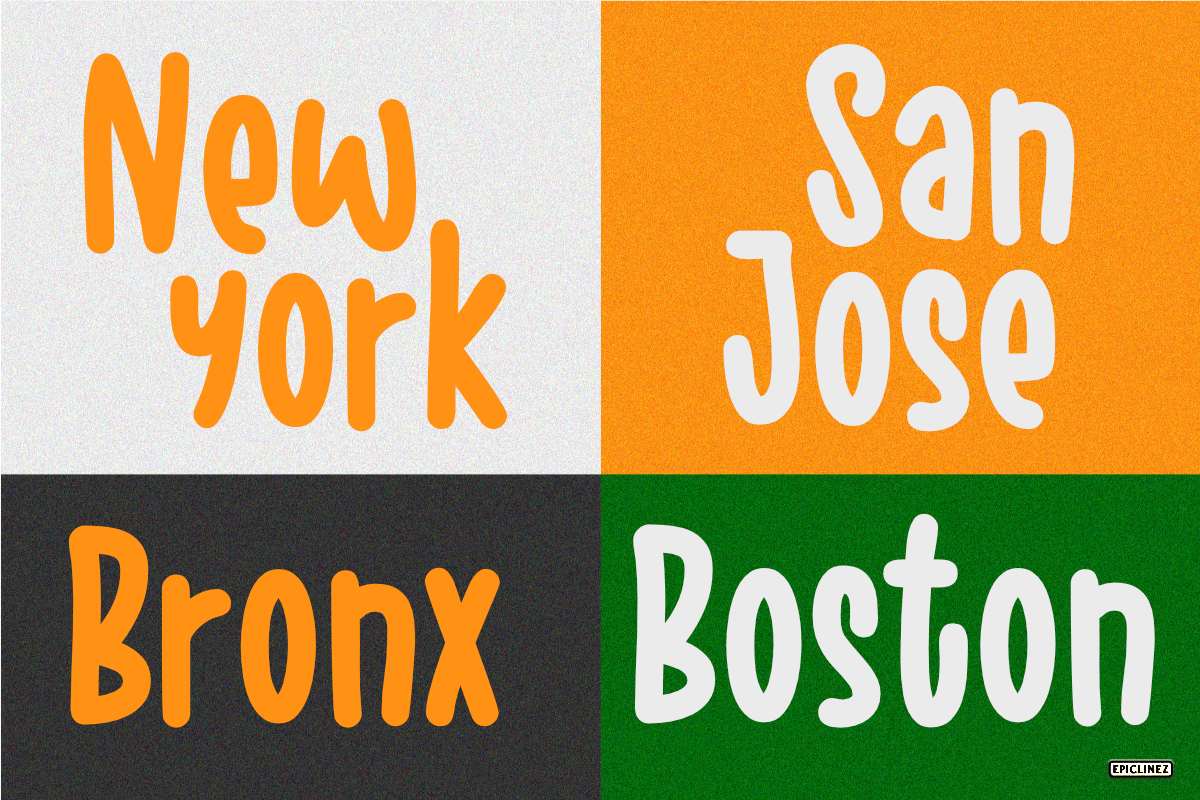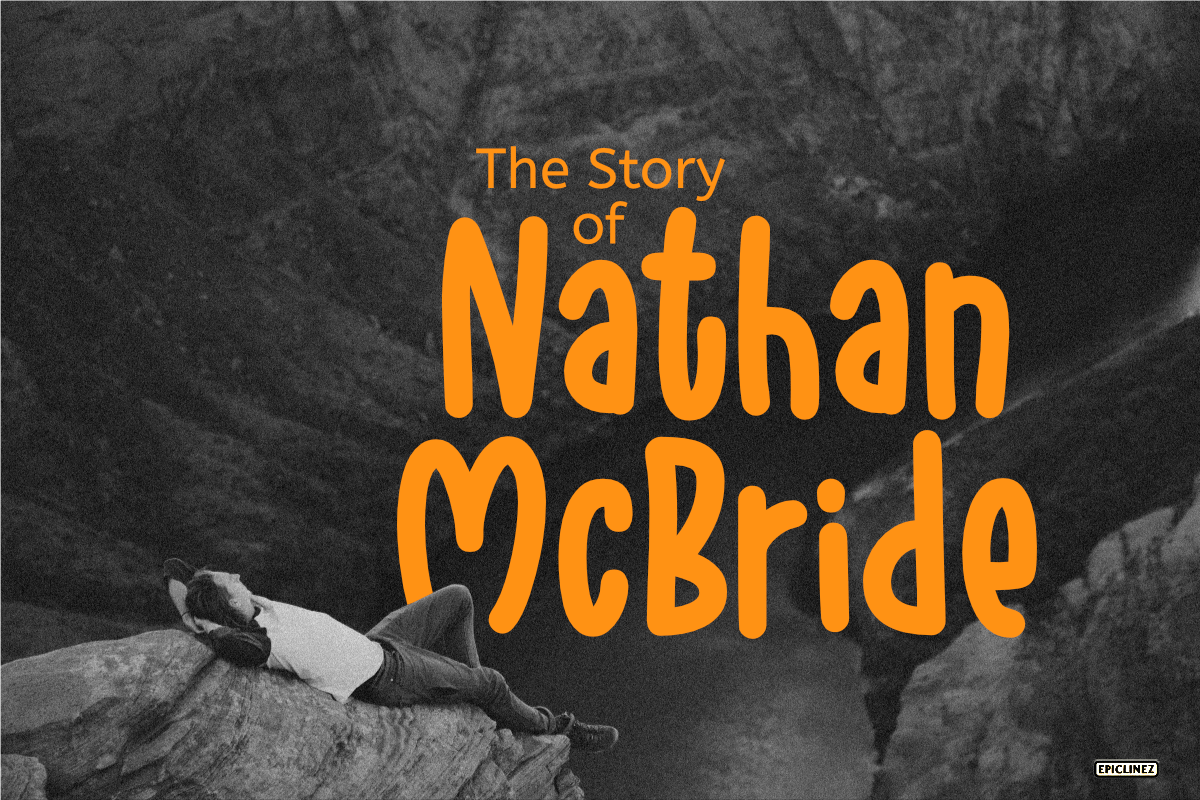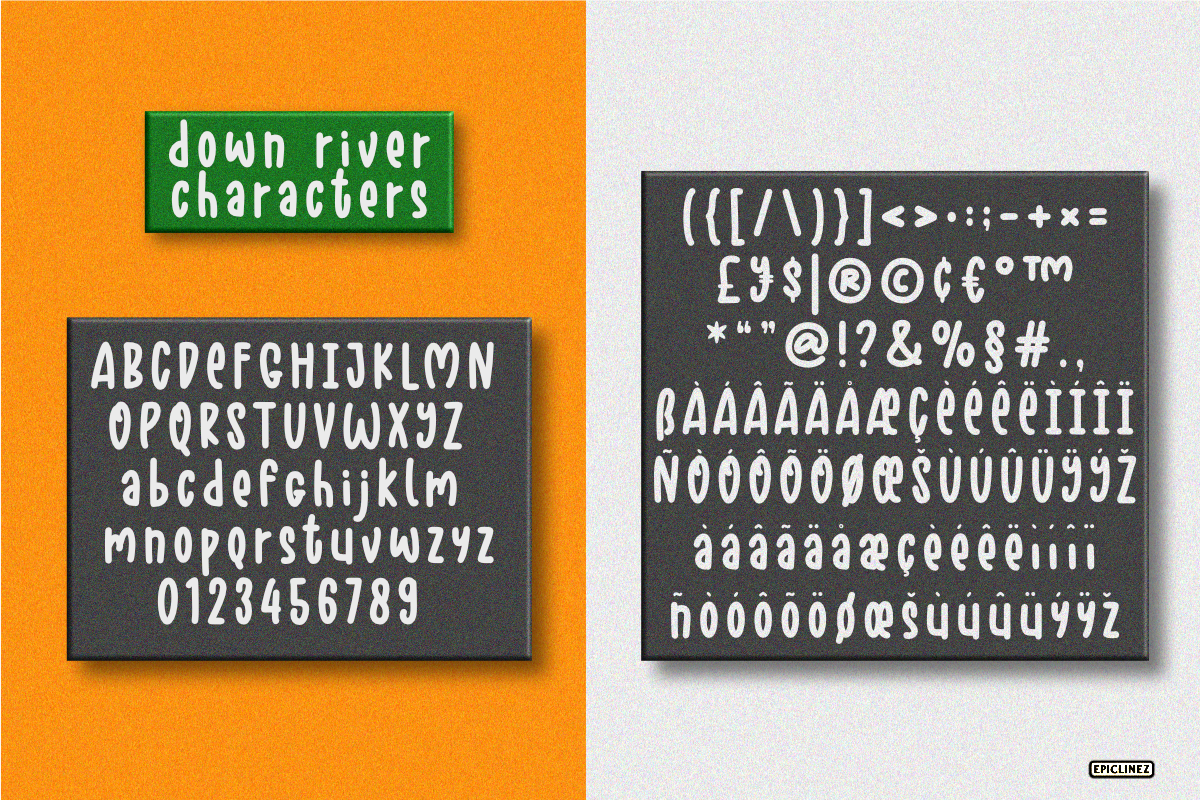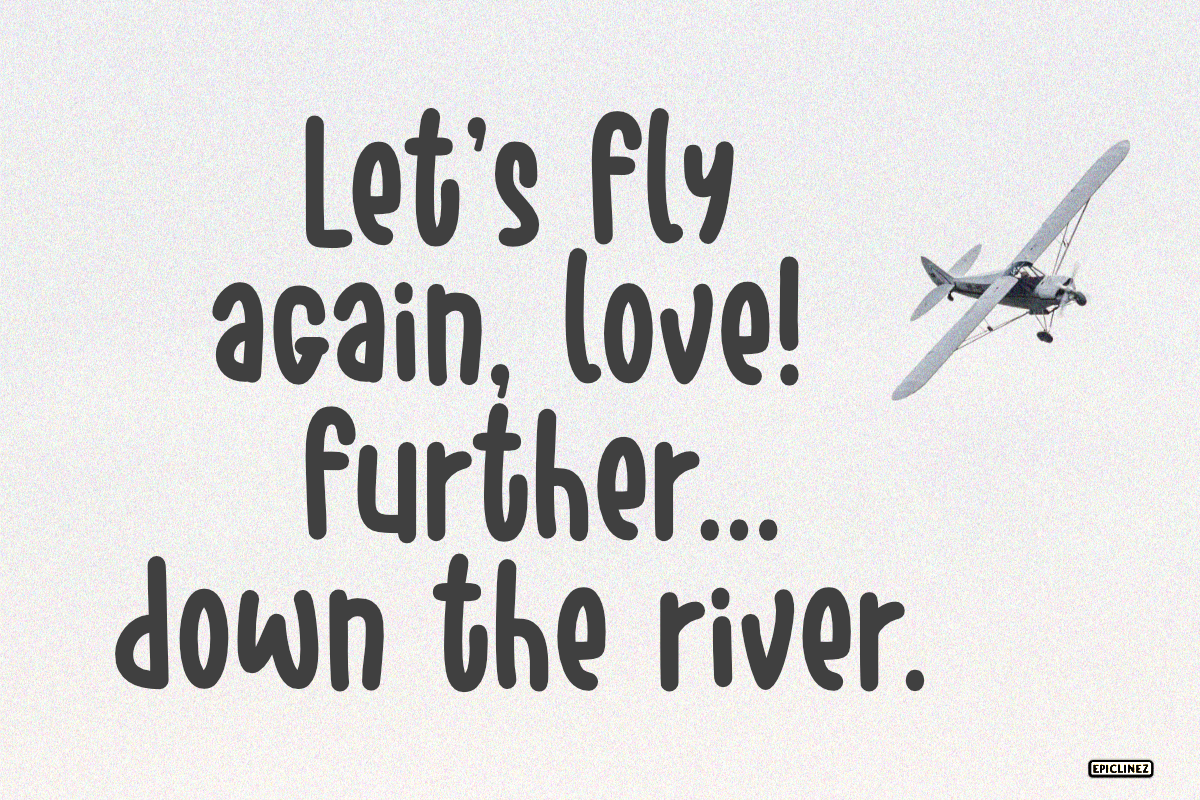
Down River
Down River is a sweet hand-lettered font. This smooth buttery font is a perfect companion for your next design project!
- Basic Latin A-Z, a-z, numbers, symbols, and punctuations
- Down River is supporting 16 Languages: Afrikaans Albanian Catalan Danish Dutch English Estonian Finnish French German Italian Norwegian Portuguese Spanish Swedish Zulu.